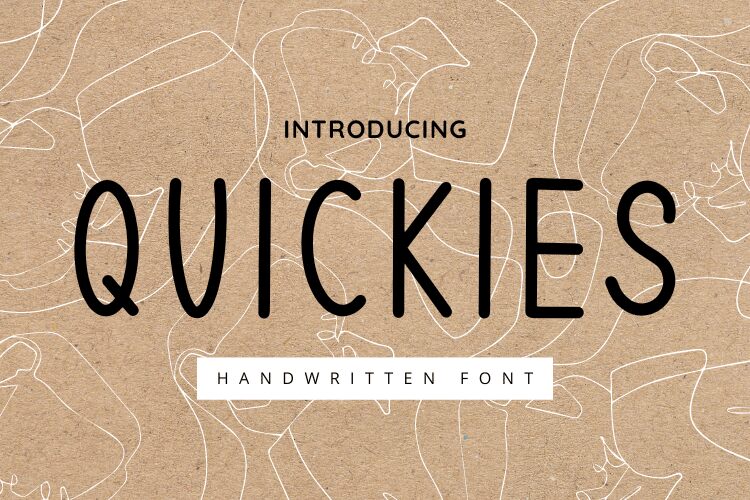
QUICKIES
Quickies font by Folv captures the playful essence of handwritten style with a unique, condensed form. This free font offers an engaging and lively aesthetic that stands out in any design scenario.
Perfect for projects seeking a personal touch, Quickies excels in branding, invitations, and creative editorial design. Its condensed structure makes it ideal for compact layouts without sacrificing readability or charm.